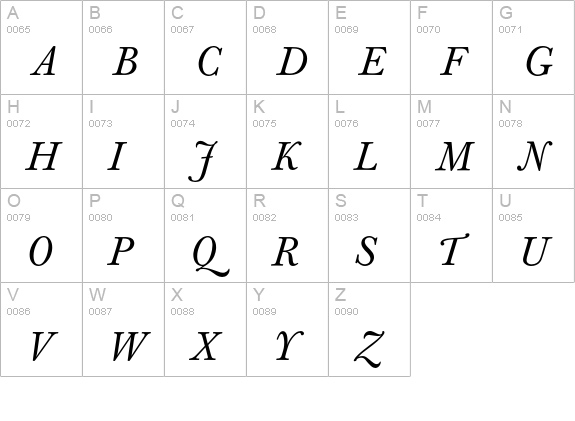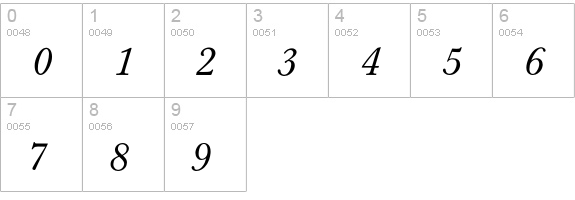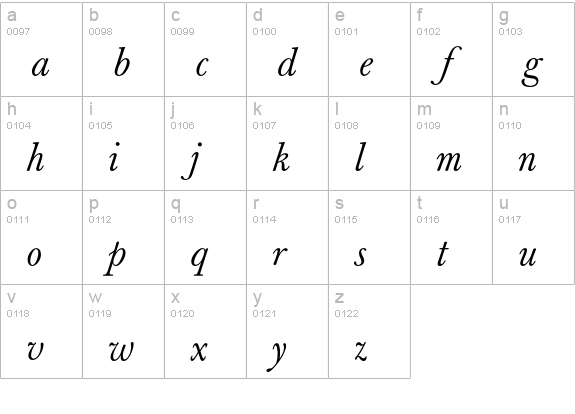
Baskerville Book BQ Italic is a comfortable, highly readable, italic variant in the Baskerville typeface family \xE2\x80\x94 well suited to long-form body text, articles, and editorial content.
The Baskerville Book BQ Italic font exudes elegance and sophistication with its sleek and modern design. Its italic style adds a touch of flair to any project, making it perfect for use in editorial materials, branding, and more. This versatile font strikes the perfect balance between traditional and contemporary aesthetics, making it a timeless choice for designers looking to make a statement. Best of all, Baskerville Book BQ Italic is available for free download at FontsMarket.com. Whether you're a seasoned graphic designer or a hobbyist looking to elevate your projects, this font is a must-have addition to your collection. Don't miss out on the opportunity to enhance your designs with this exquisite typeface that is both classic and cutting-edge. Download Baskerville Book BQ Italic today and unleash your creativity!